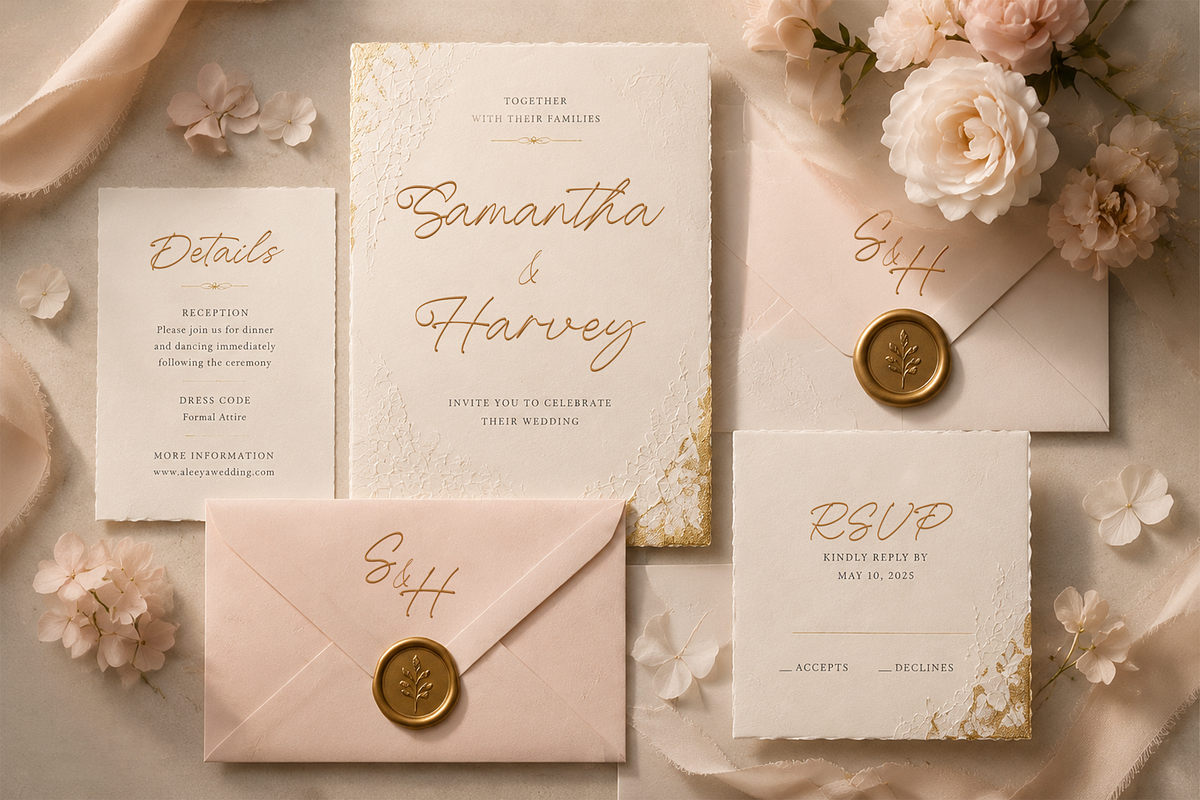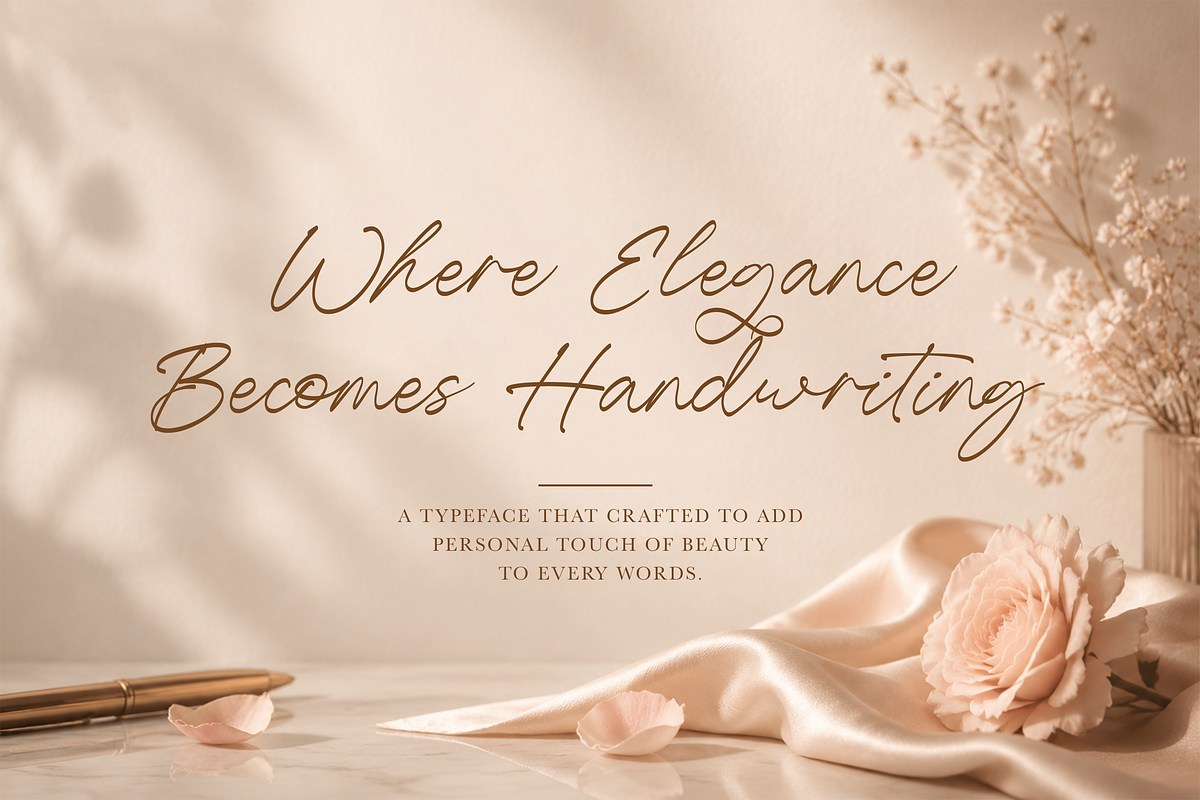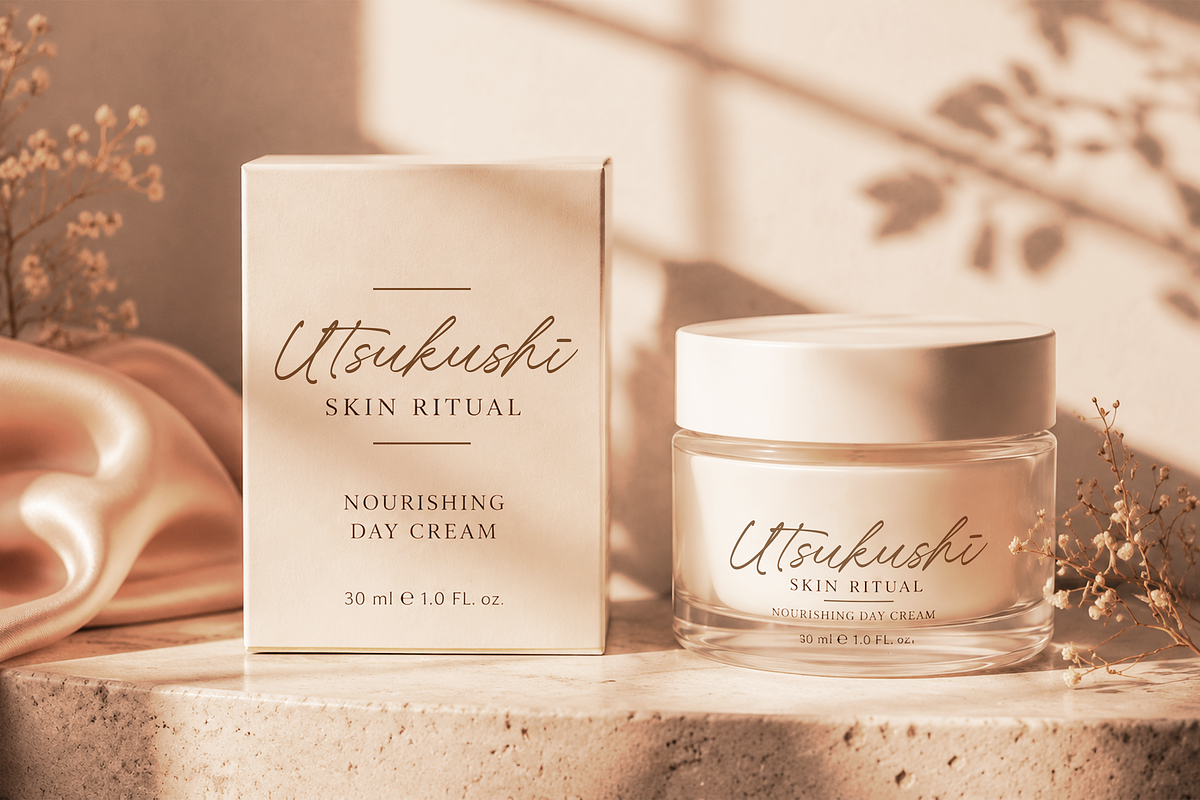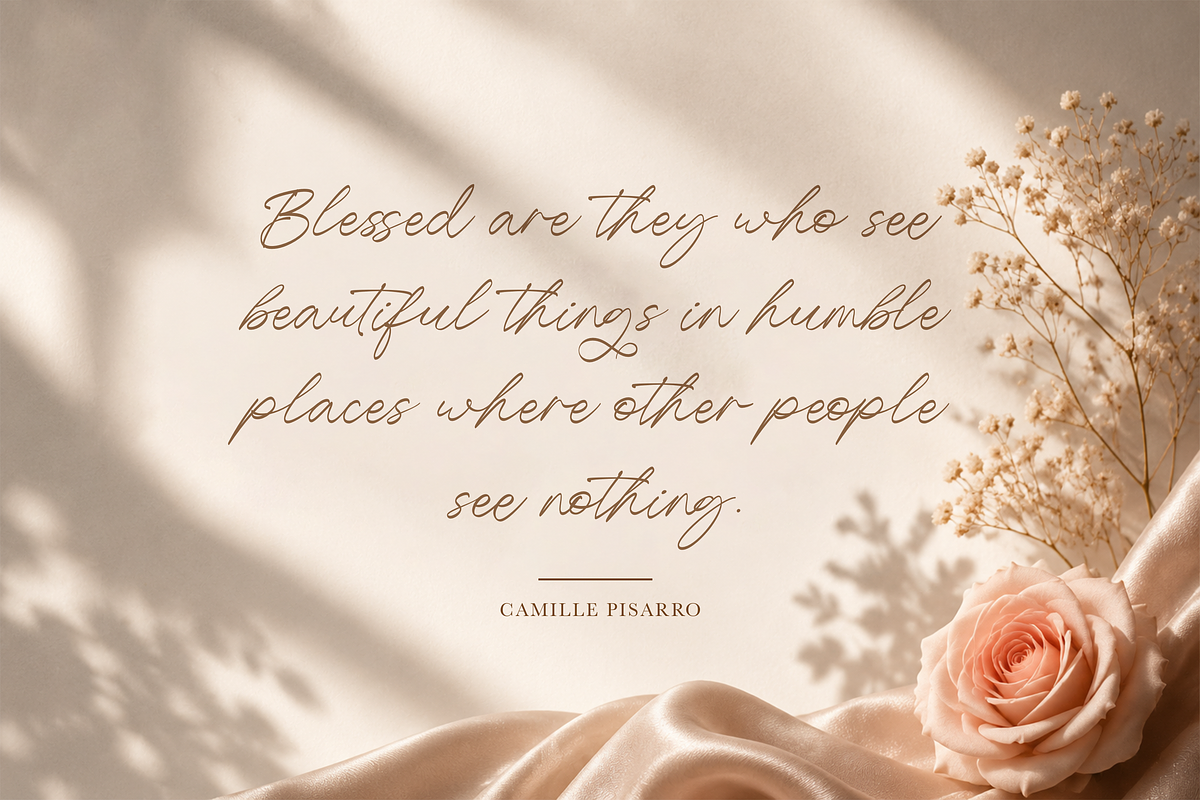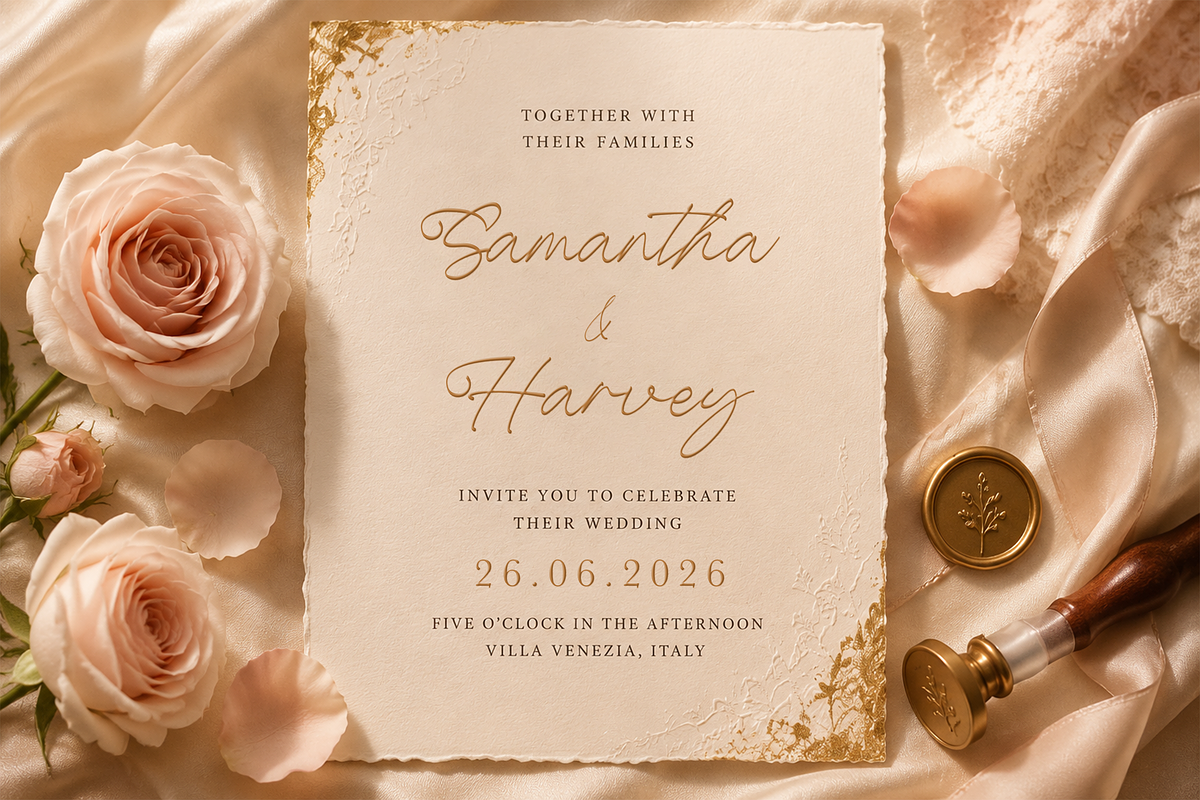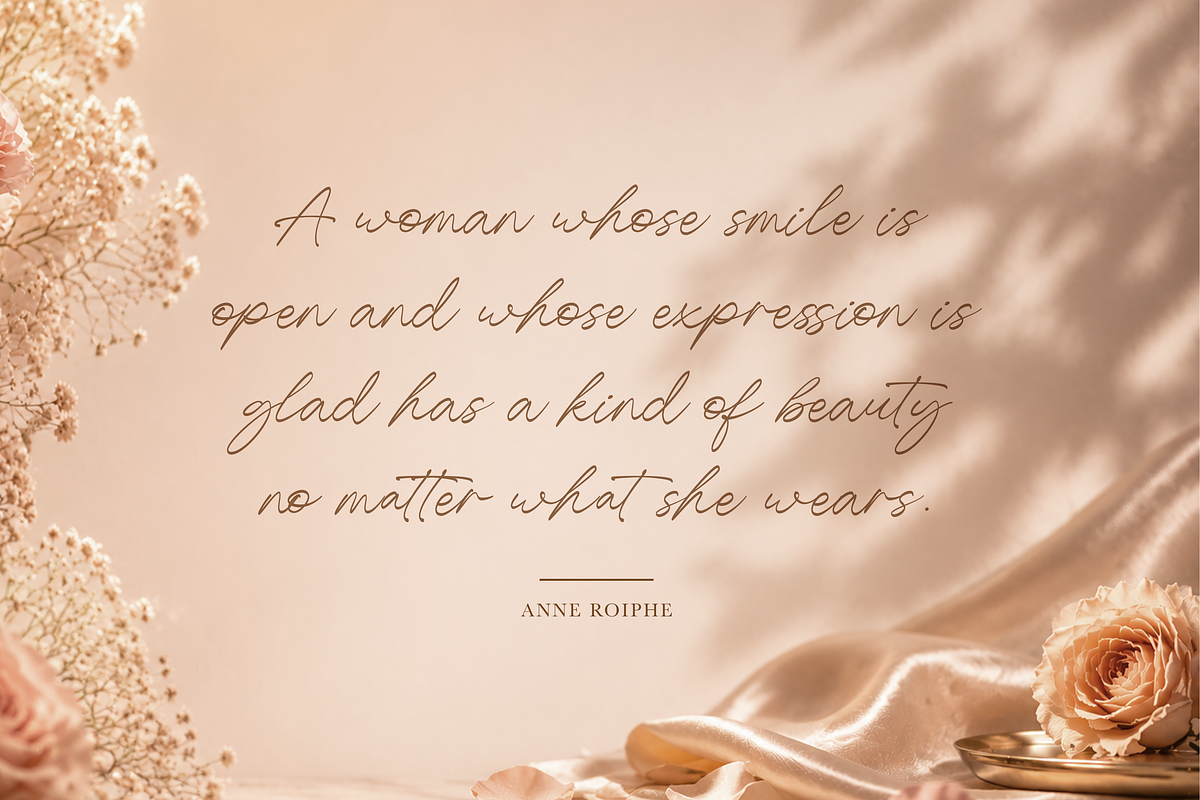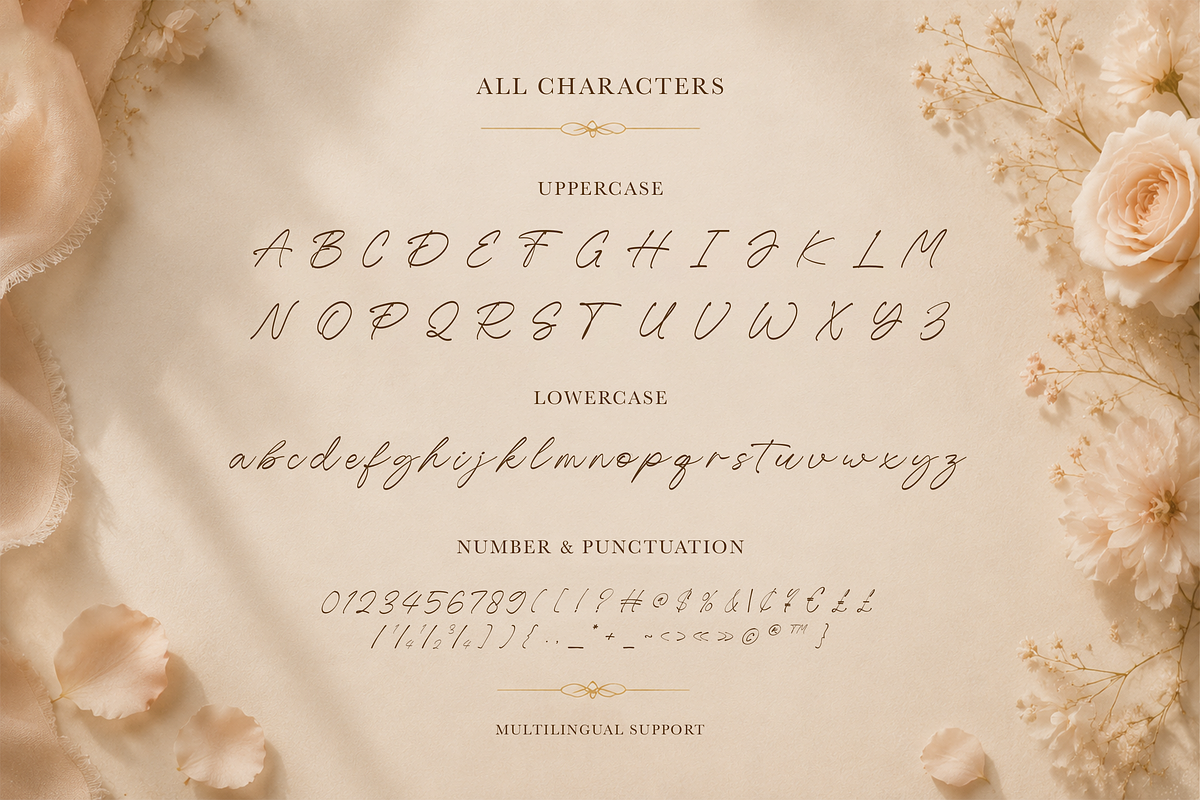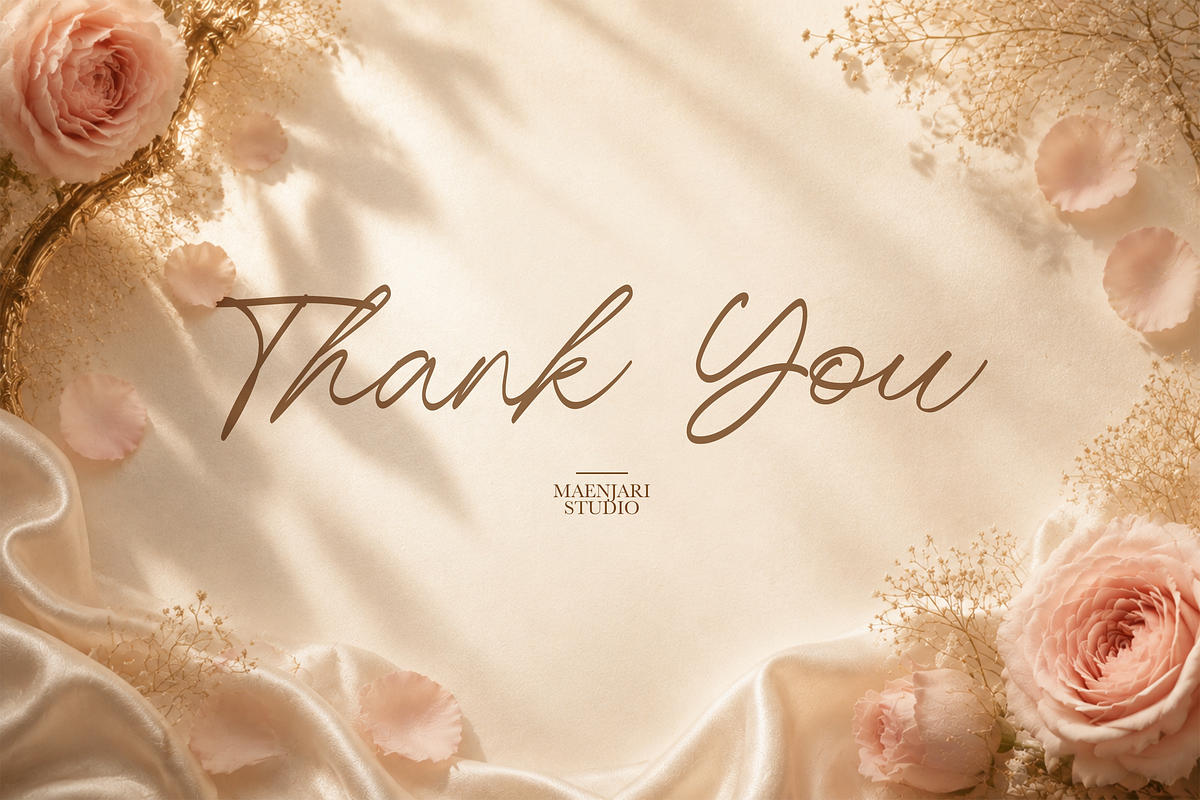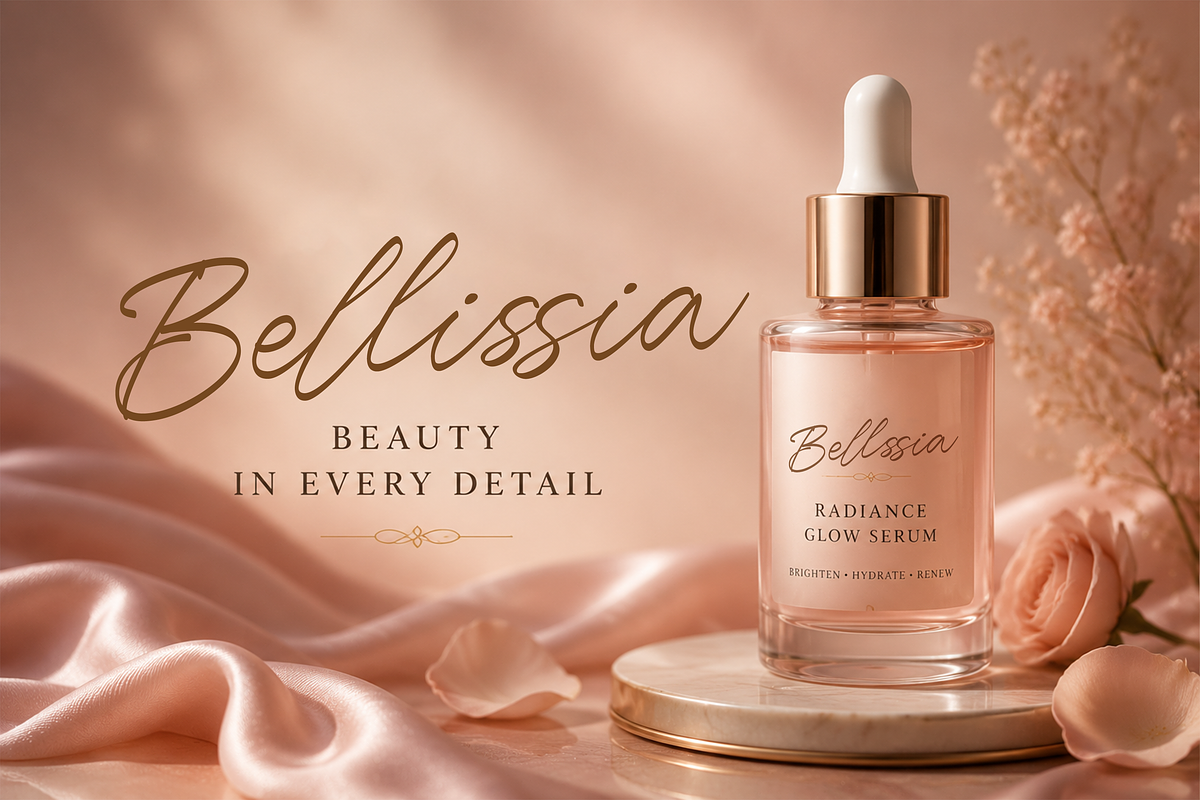
Aleeya | Elegant Handwritten Font
Capture the essence of sophisticated charm with Aleeya, an elegant handwritten script font designed by Maenjari Studio. With its slender, flowing lines and delicate letterforms, Aleeya brings a personal, handcrafted touch of sophistication to your creative endeavors.
This cursive typeface is designed with a balanced rhythm, making it highly readable while retaining an organic, calligraphic feel. It is suited for luxury branding, wedding invitations, cosmetic packaging, social media graphics, and warm editorial layouts. The fluid connection between characters gives your text a natural, authentic handwritten appearance.
Aleeya comes complete with a full character set including uppercase and lowercase letters, numbers, punctuation, and multilingual glyphs. Elevate your brand identity, invite designs, or packaging projects with this classic, versatile script.
Full Uppercase & Lowercase Character Set
Slender, delicate cursive strokes
Complete Numbers & Punctuation
Multilingual Support for global projects
Optimized for high-end wedding stationery and editorial design